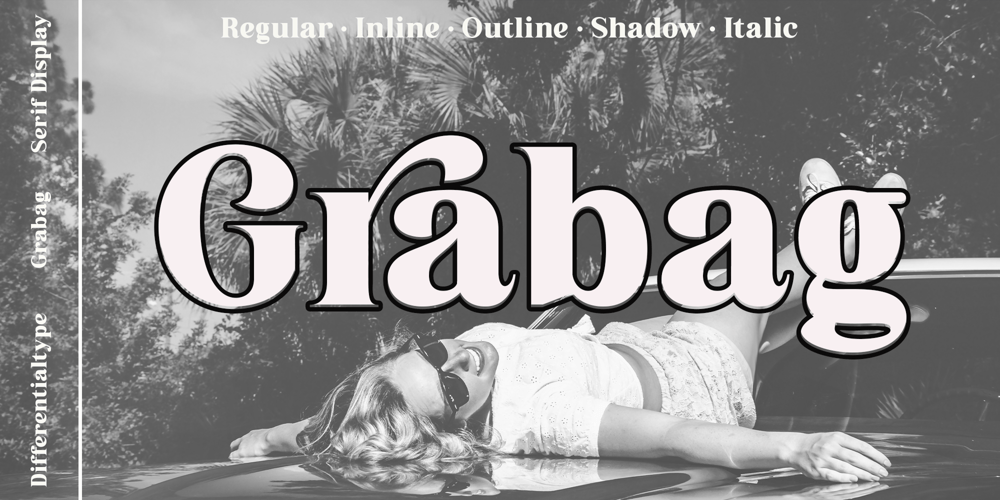
Grabag Font Family was designed by Sidik Sidik and published by Differentialtype. Grabag contains 8 styles and family package options. Grabag is a bold vintage display font that comes with four styles. It will look great for headlines, branding, magazines, logos, and more. Grabag will add a masculine and firm impression in every design you make.